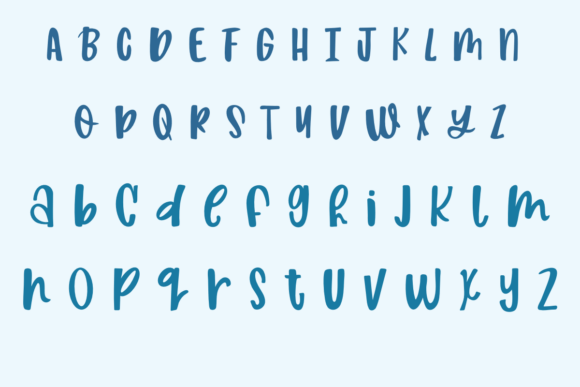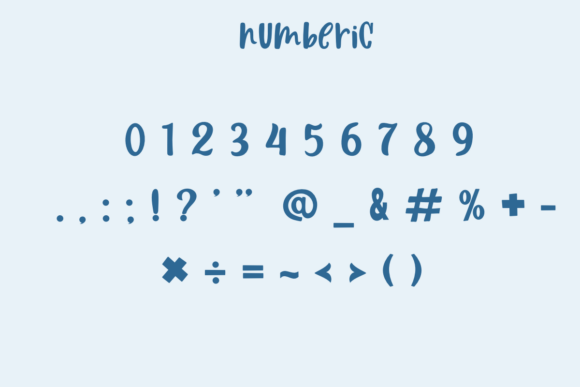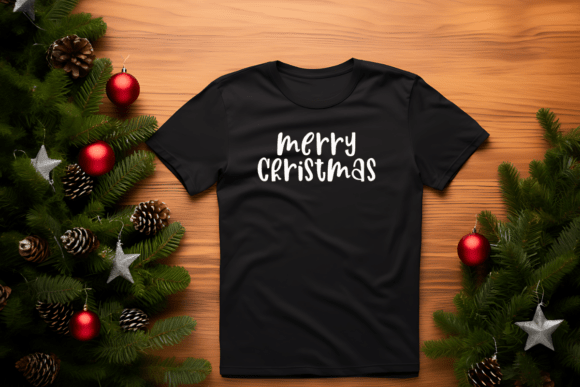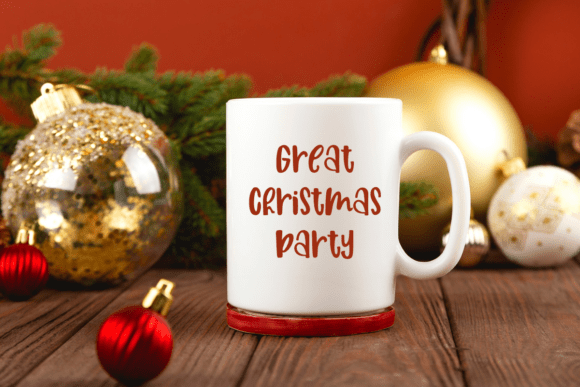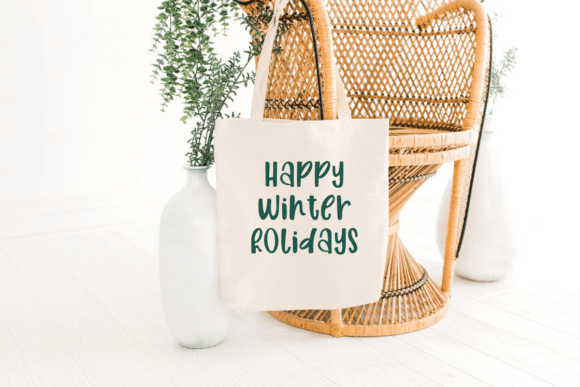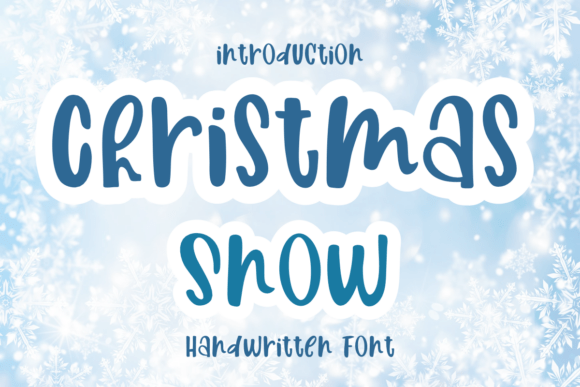
Introducing Christmas Snow Font: The Perfect Addition to Your Holiday Designs
As the winter season approaches, designers and crafters are on the lookout for the perfect font to add a touch of festive cheer to their holiday projects. Look no further than Christmas Snow Font, a cheerful handwritten font that embodies the playful, snowy vibe of the season. With its rounded letters and festive style, this font is ideal for creating eye-catching greeting cards, holiday crafts, winter posters, and seasonal branding.
What Makes Christmas Snow Font So Special?
Christmas Snow Font is a unique and charming font that is sure to capture the essence of the holiday season. Its rounded letters and playful style give it a friendly and approachable feel, making it perfect for a wide range of applications. Whether you’re designing a holiday greeting card, a winter poster, or a festive craft project, this font is sure to add a touch of magic to your design.
Key Features of Christmas Snow Font
- Cheerful Handwritten Style: Christmas Snow Font features a cheerful handwritten style that is perfect for adding a personal touch to your holiday designs.
- Rounded Letters: The font’s rounded letters give it a playful and friendly feel that is sure to delight.
- Festive Style: The font’s festive style makes it perfect for holiday designs, from greeting cards to winter posters.
- Easy to Read: Despite its playful style, Christmas Snow Font is easy to read, making it perfect for use in a wide range of applications.
Uses for Christmas Snow Font
Christmas Snow Font is a versatile font that can be used in a wide range of applications, including:
- Greeting Cards: Add a touch of festive cheer to your holiday greeting cards with Christmas Snow Font.
- Holiday Crafts: Use Christmas Snow Font to add a personal touch to your holiday craft projects, from scrapbooking to card making.
- Winter Posters: Create eye-catching winter posters with Christmas Snow Font, perfect for advertising holiday events or promotions.
- Seasonal Branding: Use Christmas Snow Font to add a touch of festive cheer to your seasonal branding, from packaging to website headers.
Tips for Using Christmas Snow Font
Here are a few tips for getting the most out of Christmas Snow Font:
- Pair with Other Fonts: Pair Christmas Snow Font with other fonts to create a unique and eye-catching design.
- Experiment with Colors: Experiment with different colors to find the perfect combination for your holiday design.
- Use in Combination with Images: Use Christmas Snow Font in combination with images to create a festive and eye-catching design.
Christmas Snow Font is a unique and charming font that is sure to add a touch of festive cheer to your holiday designs. With its cheerful handwritten style, rounded letters, and festive style, this font is perfect for a wide range of applications, from greeting cards to winter posters. Whether you’re a designer or a crafter, Christmas Snow Font is sure to become a favorite addition to your font collection.
Get Creative with Christmas Snow Font